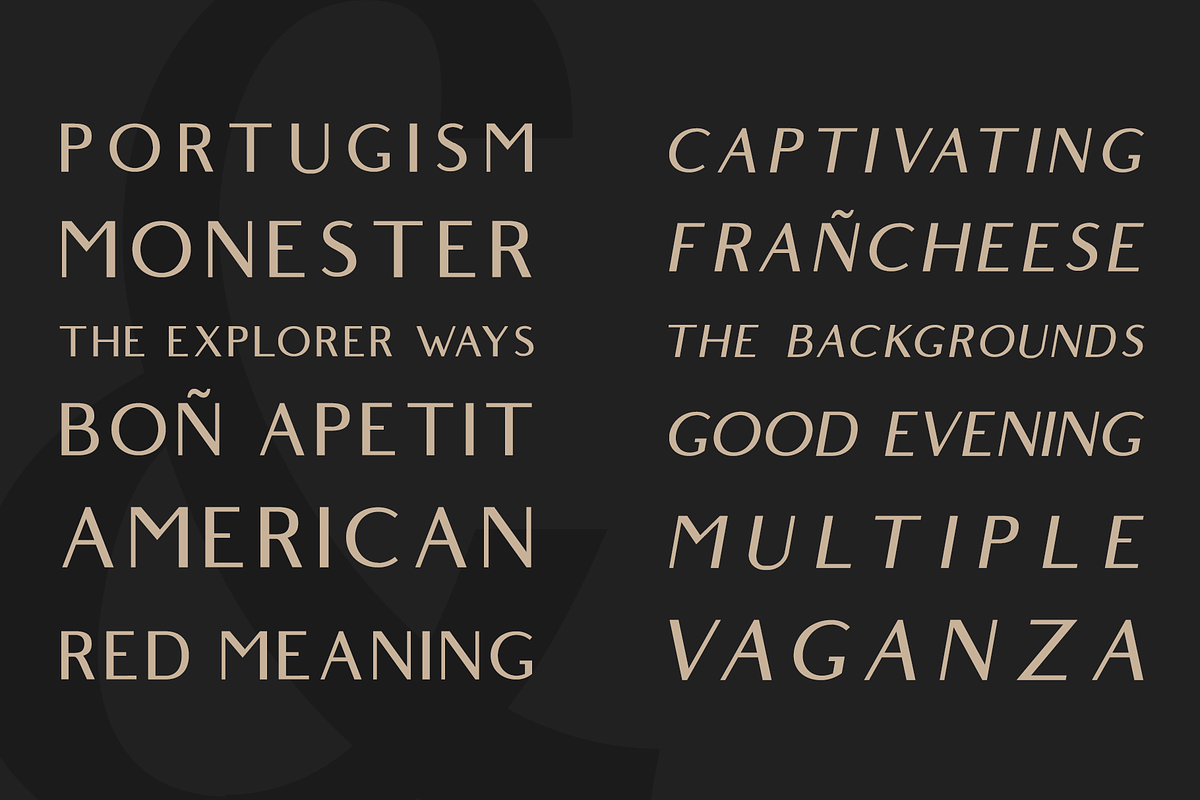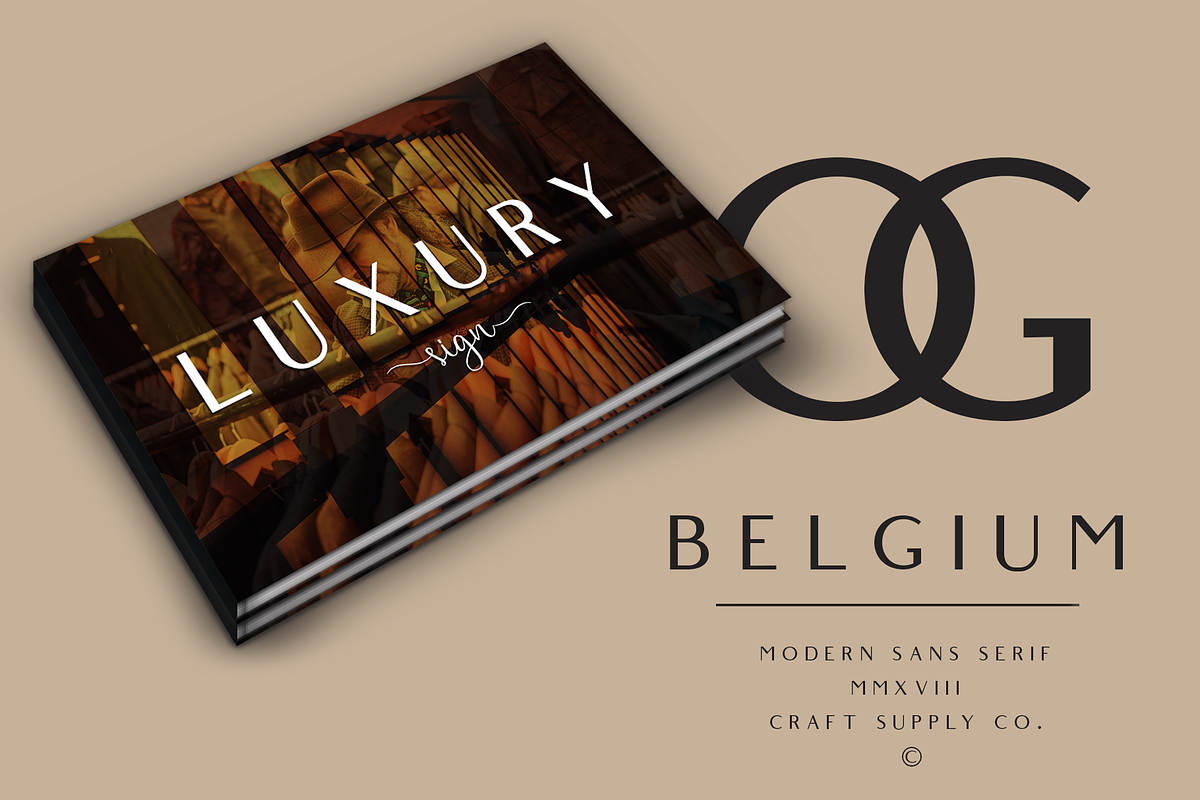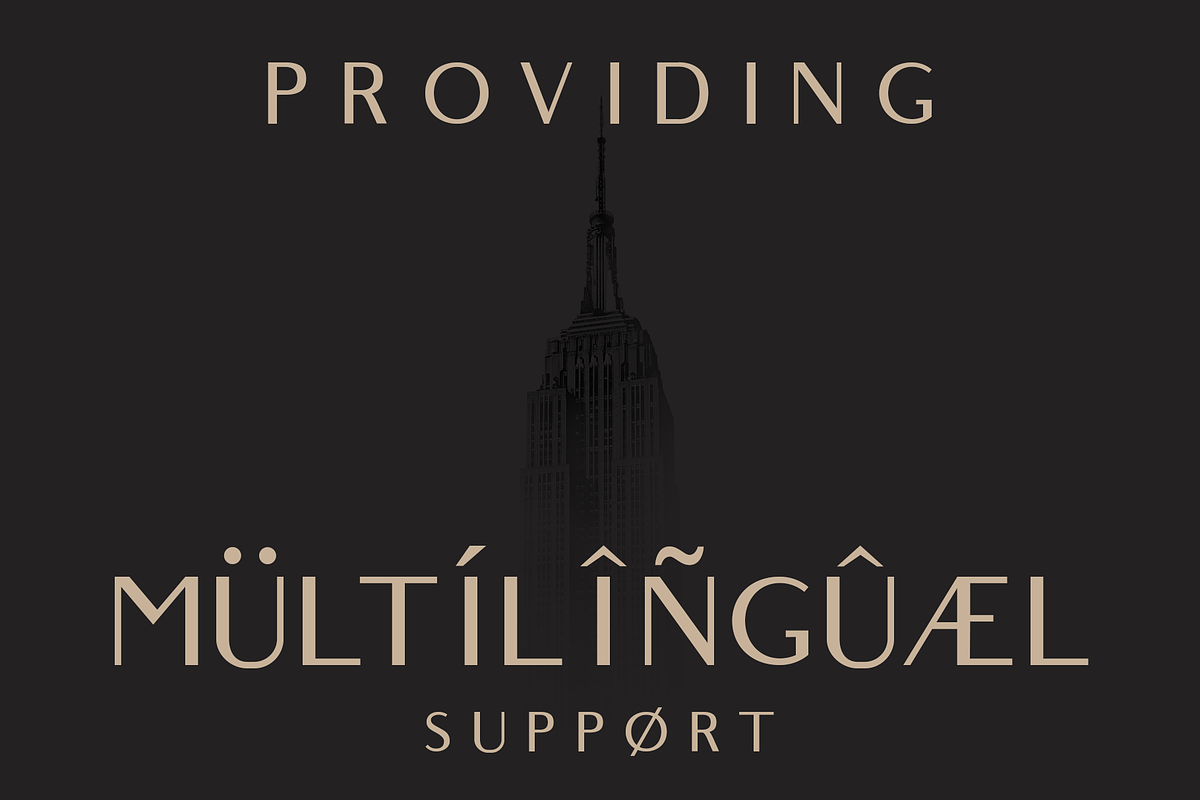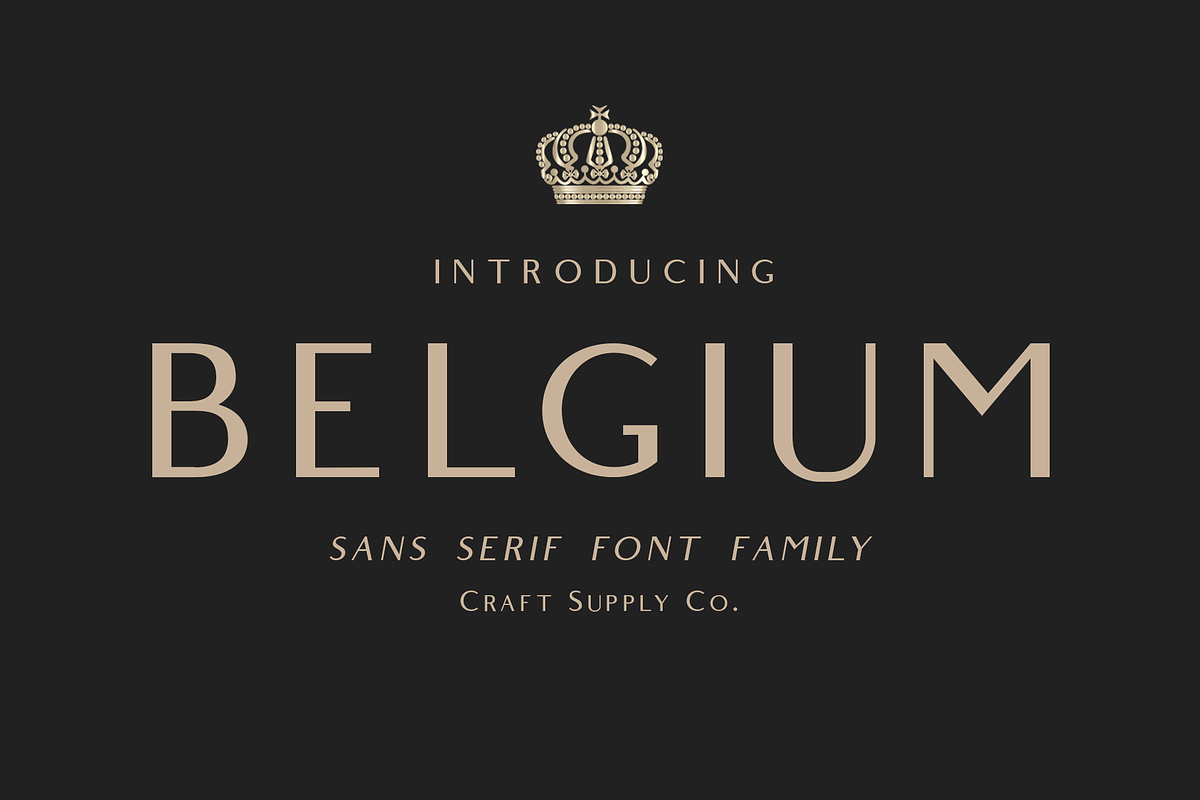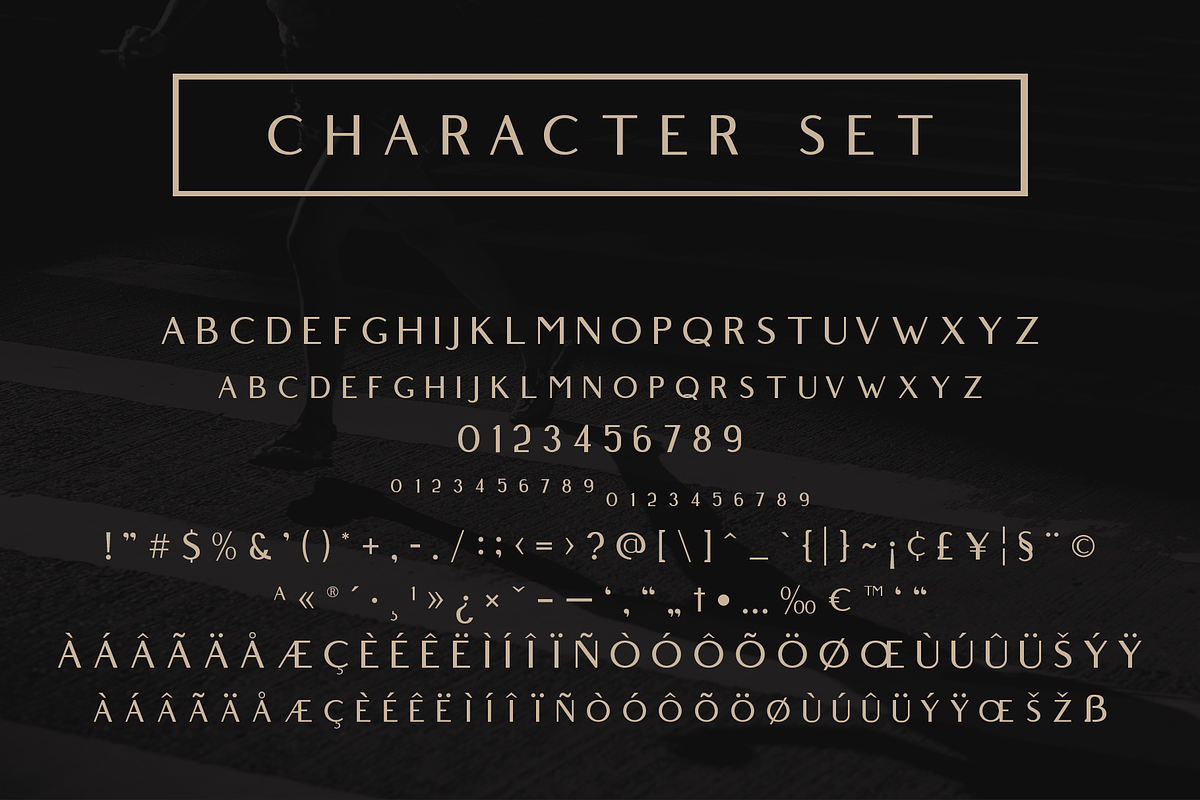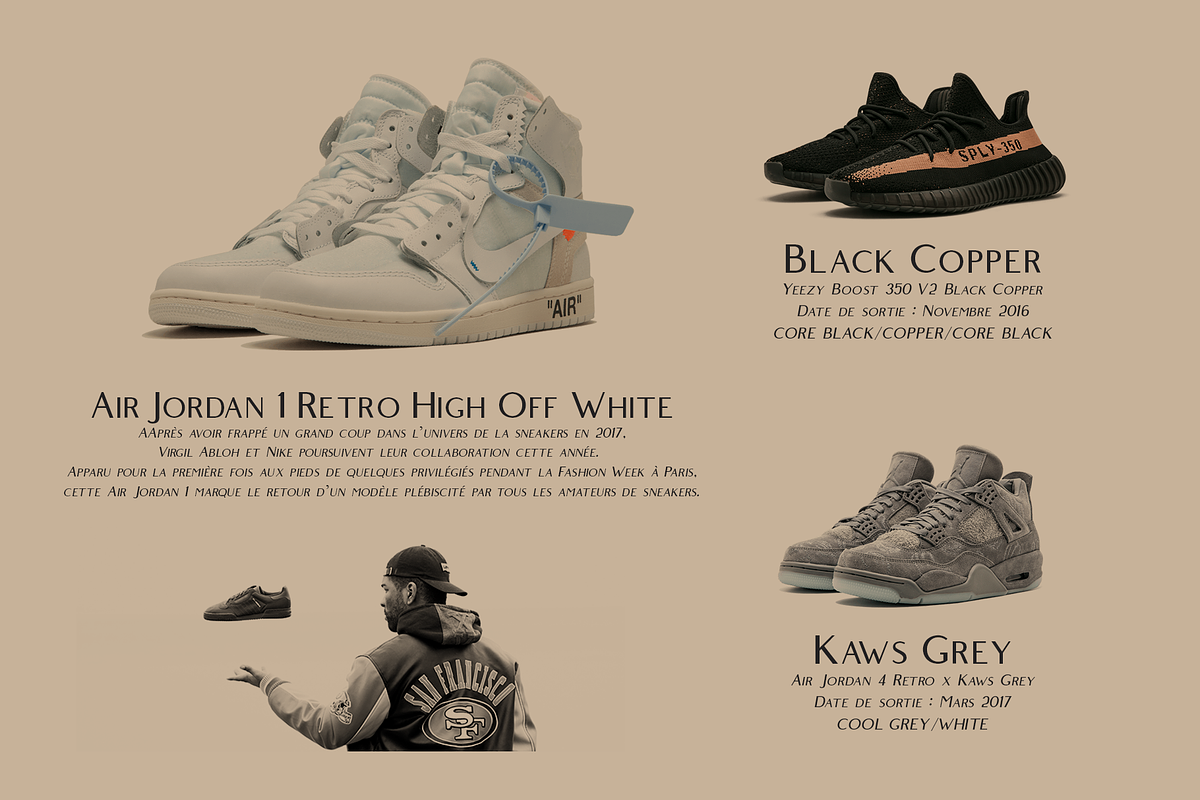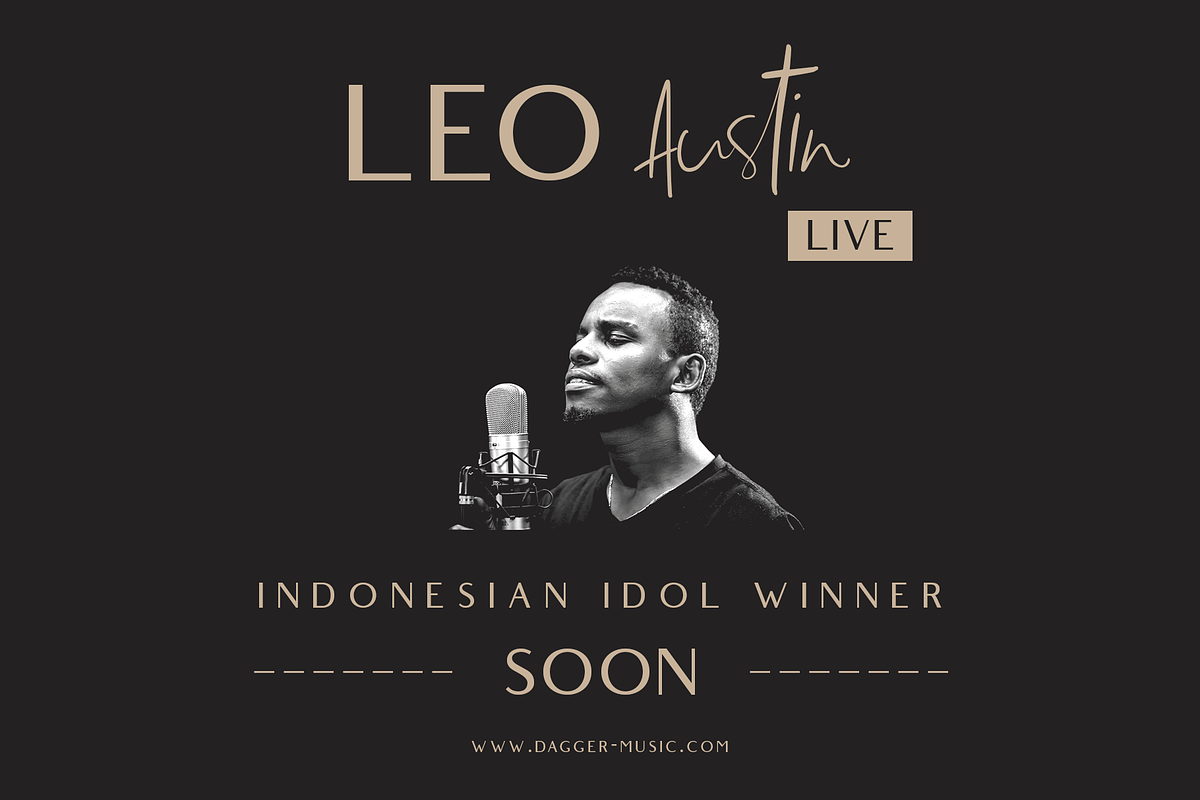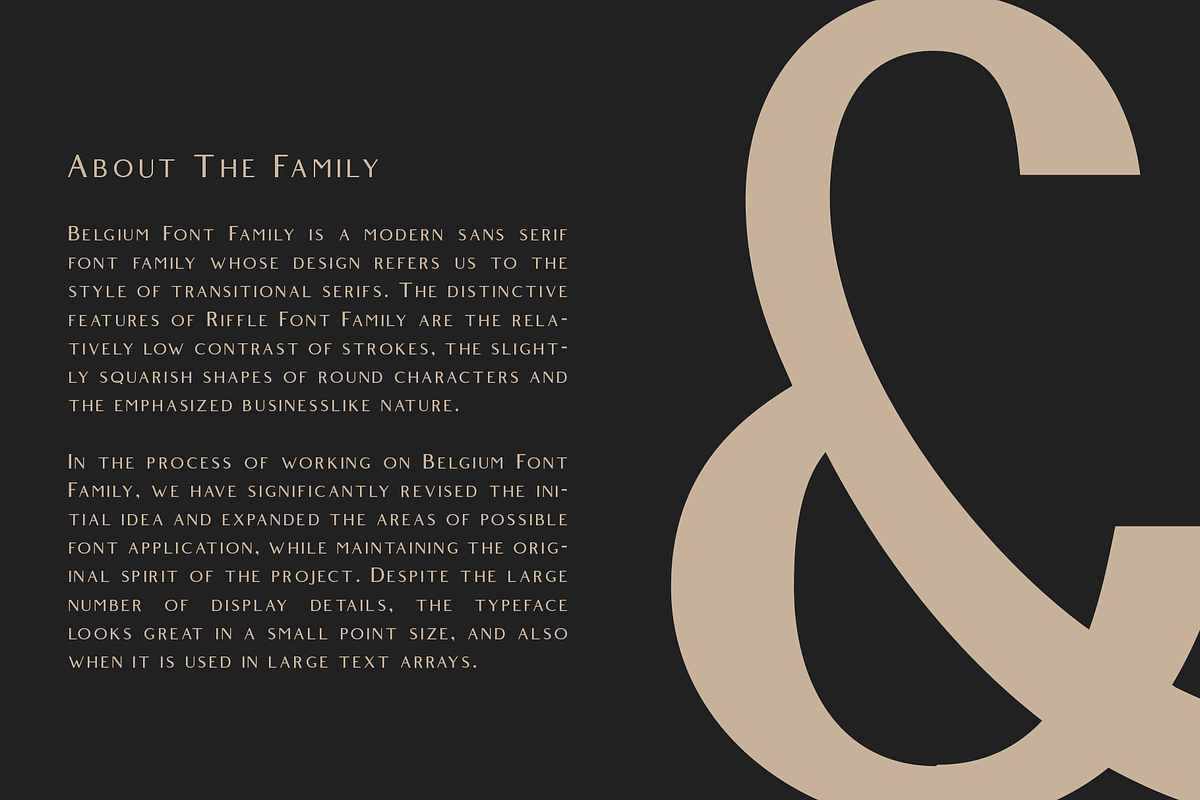
Belgium Font Family
Introducing New Font : Belgium Font Family
Belgium Font Family is a modern serif font family whose design refers us to the style of modern sans serif. The distinctive features of Belgium Font Family are the relatively low contrast of strokes, the slightly squarish shapes of round characters and the emphasized business like simplicity.
Belgium Font Family features an original stylistic set which, when turned on, adds features of typical pointed-pen sans serif to some of the lowercase characters. In addition, Belgium Font Family has small capitals for Latin and as well as several interesting ligatures.
Belgium Font Family has been crafted from scratch with a structural logic of its own: a fusion of pure geometry and optical balance. By combining a variety of styles Belgium Font Family is suitable for Logo, greeting cards, quotes, posters, branding, name card, stationary, design title, blog header, art quote, typography
Belgium Font Family also suitable for art, modern envelope lettering or book design, happening style like handdrawn design or watercolor design theme, craft design, any DIY project, book title, wedding font, pop vintage design, or any purpose to make our art/design project look pretty and trendy.
1. Upper Case & Lowercase
2. Stylistic Alternates
3. Standard Ligatures
4. Numerals & Punctuations (OpenType Standard)
5. Accents (Multilingual characters)AÀÁÂÃÄÅCÇDÐEÈÉÊËIÌÍÎÏNÑOØÒÓÔÕÖUÙÜÚÛWYÝŸỲŸÆŒßÞþ
Why Belgium Font Family is worth a look
Belgium Font Family by Craft Supply Co. fits naturally into Branding, posters, packaging, typography.